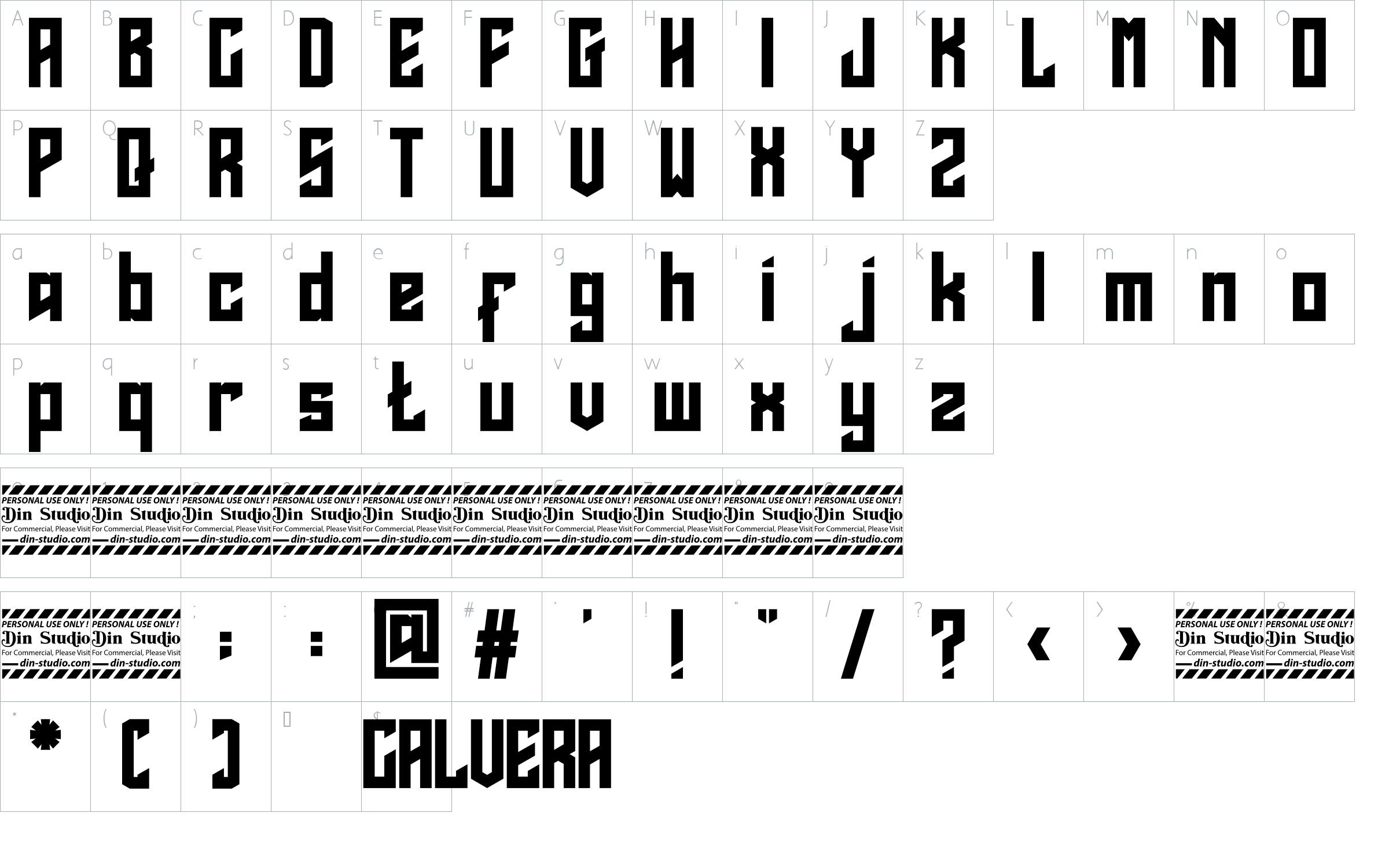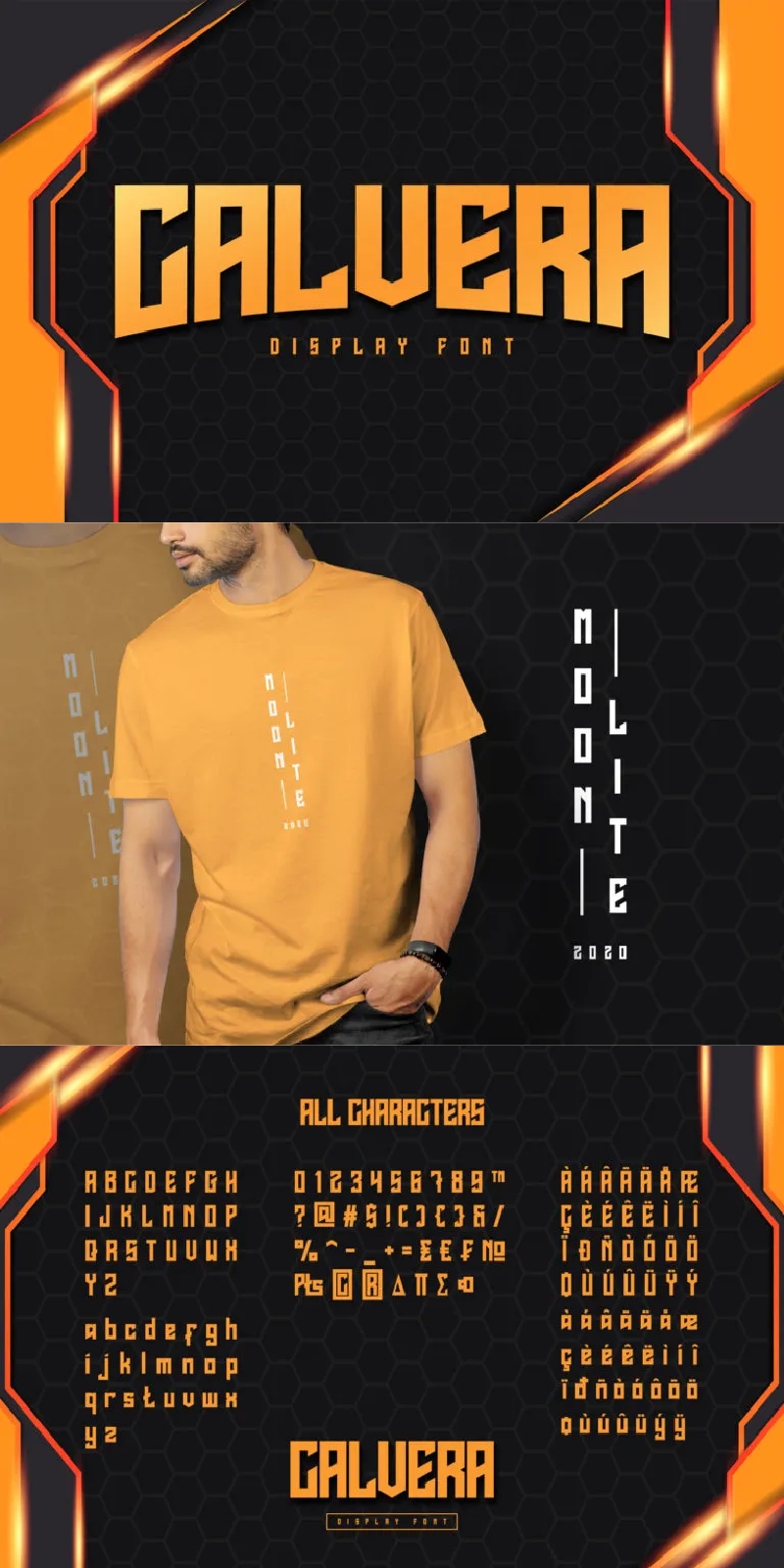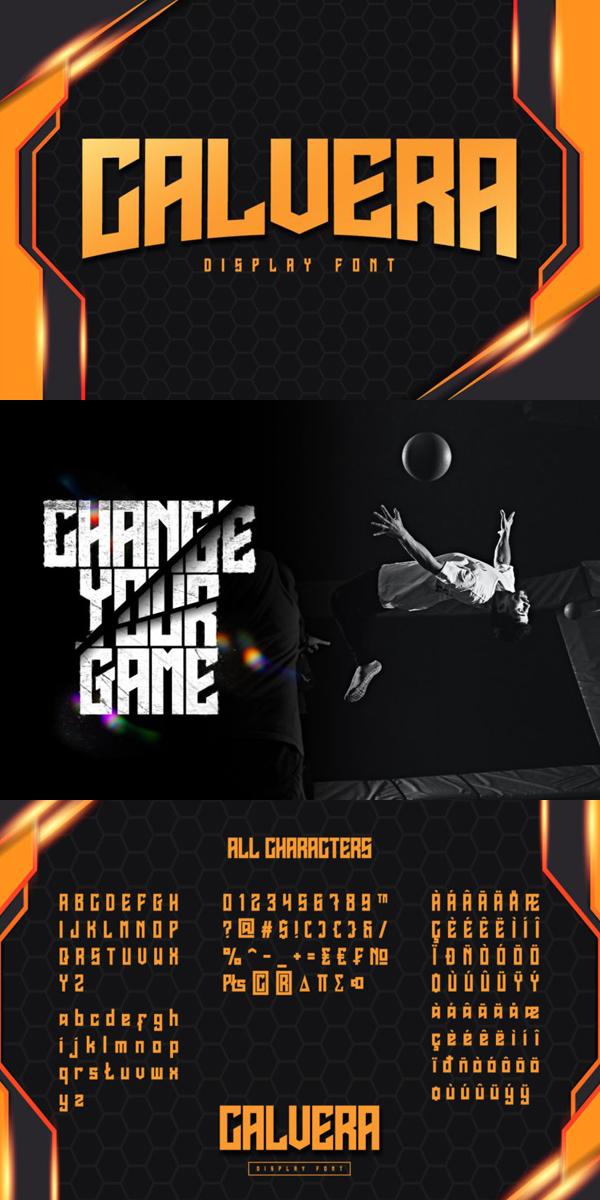
Calvera Font
About Calvera
Calvera,a modern display font made for any professional project brandings which is best used for logos, brandings, and quotes. Every letter has a unique and beautiful touch. See the previews above to get some inspiration on how you can use them. Happy designing!